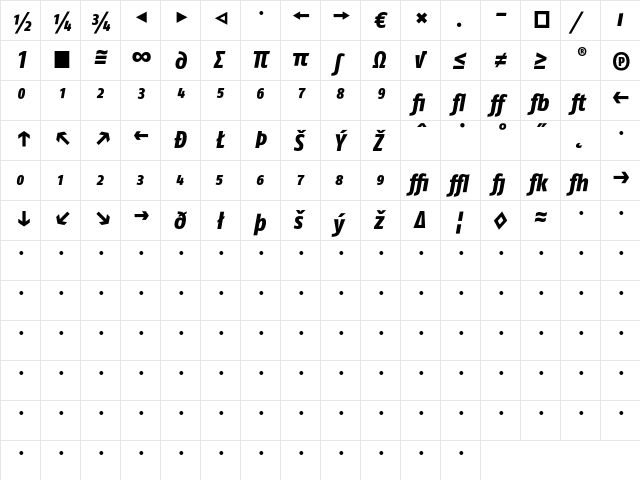
FagoCo ExtraBoldItalicExp
Design Context for FagoCo Typeface
FagoCo offers clean, dependable letterforms without strong stylistic allegiance, making it a practical choice for designers who need flexibility. The dynamic lean of this cut emphasises speed and emphasis in any layout. Its bold stroke weight gives it real presence on the page.
Pro Tip: Try FagoCo for annotation and caption copy alongside an upright companion — the contrast in angle creates a dynamic but ordered typographic system.